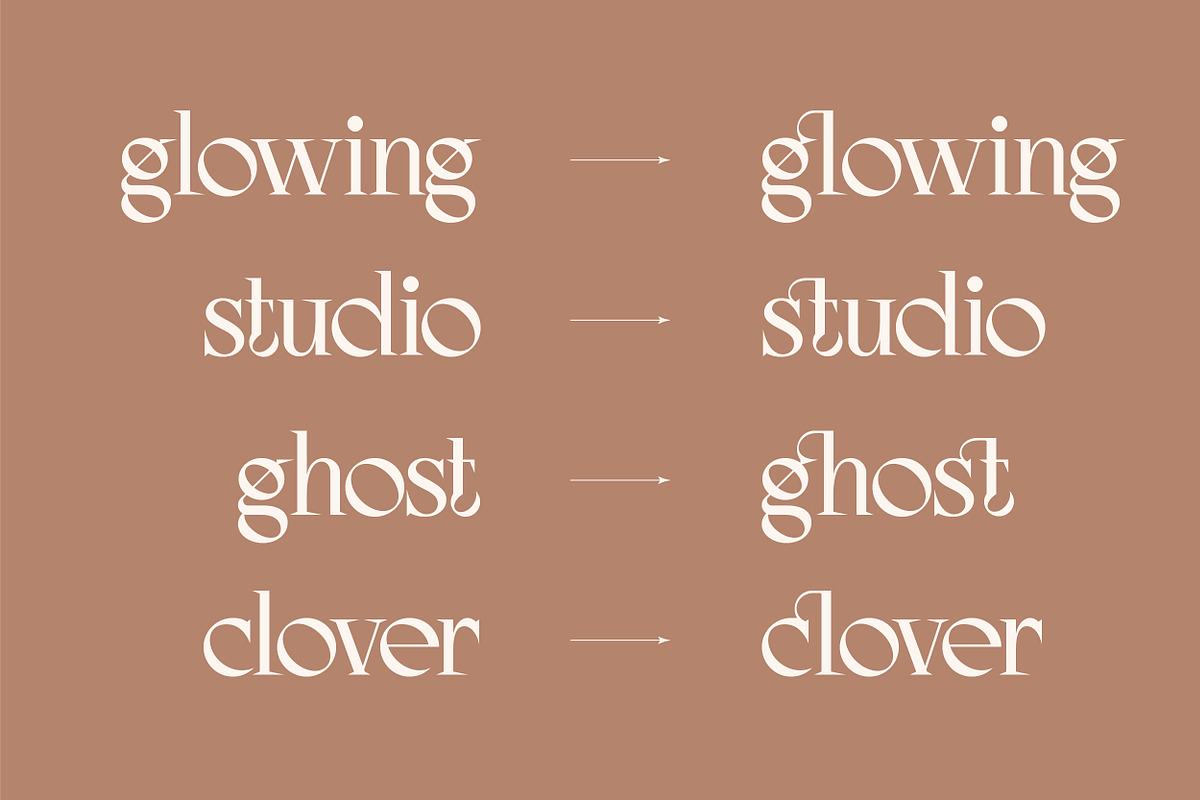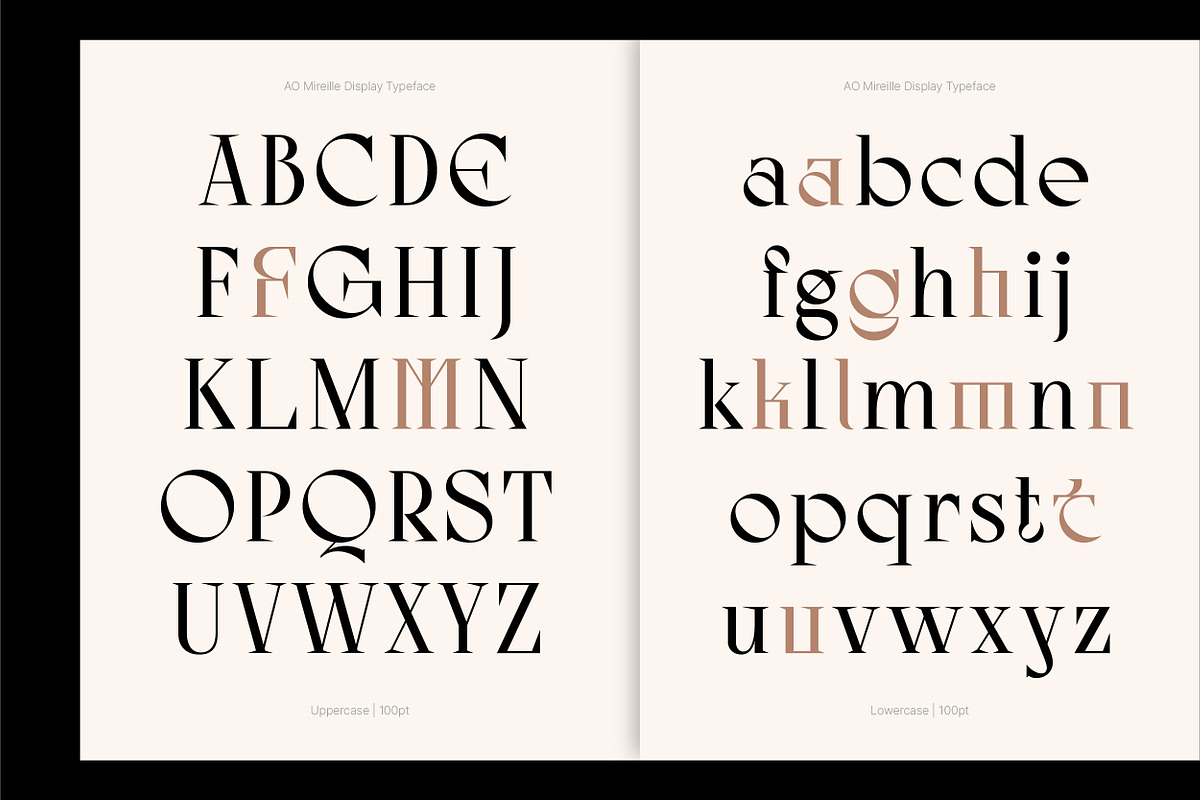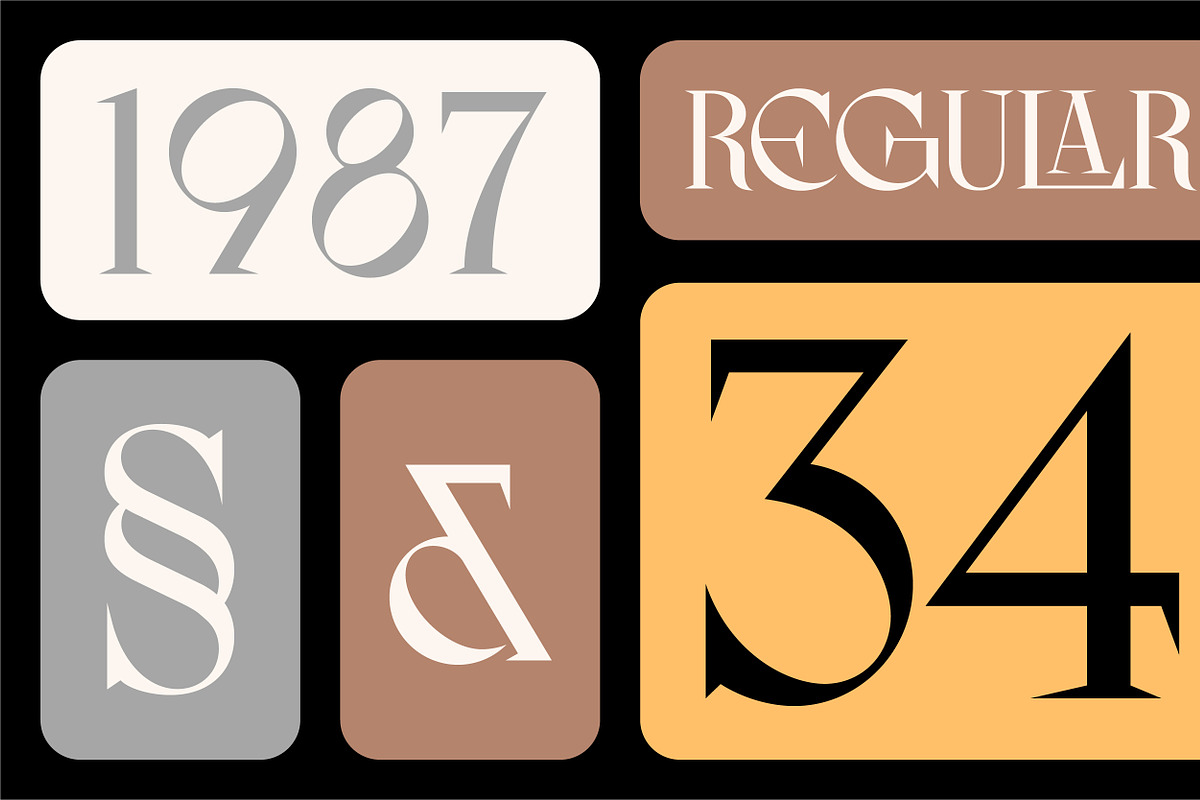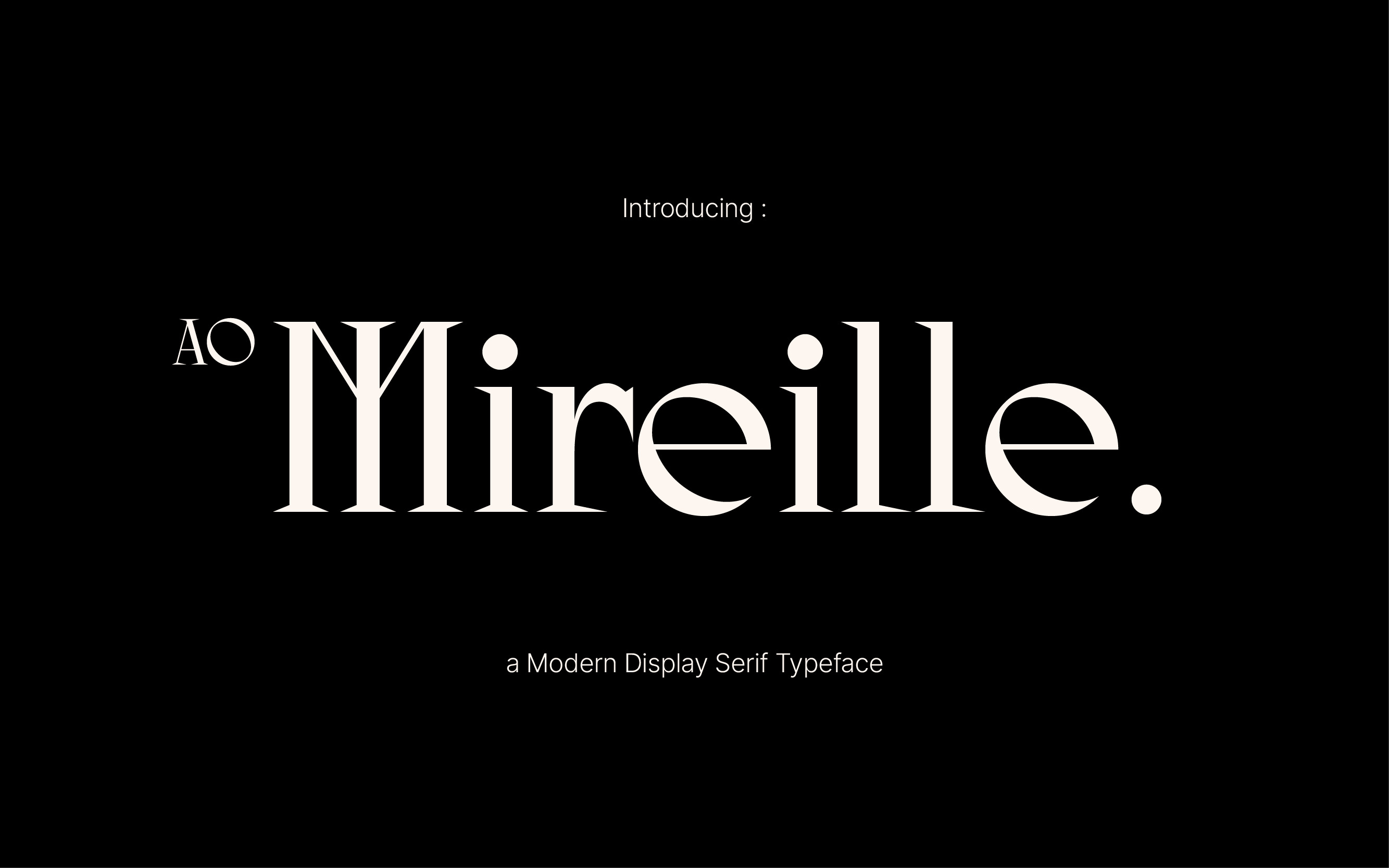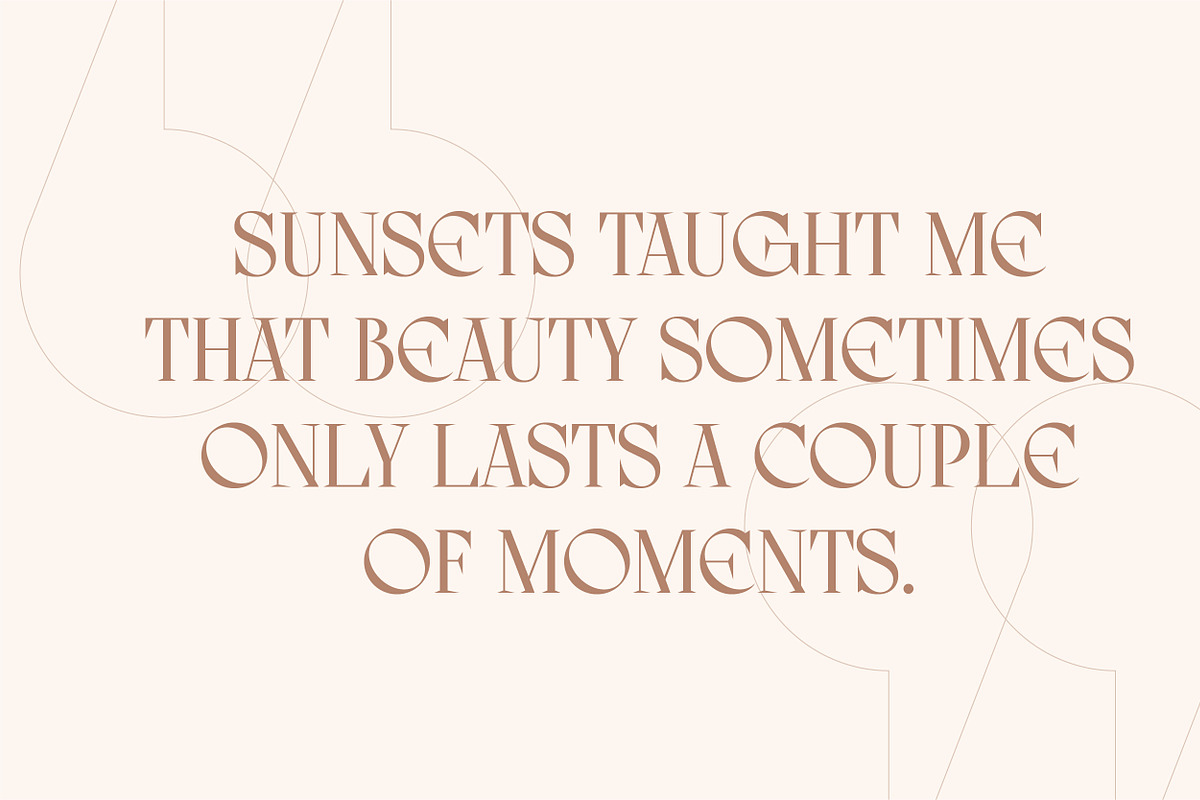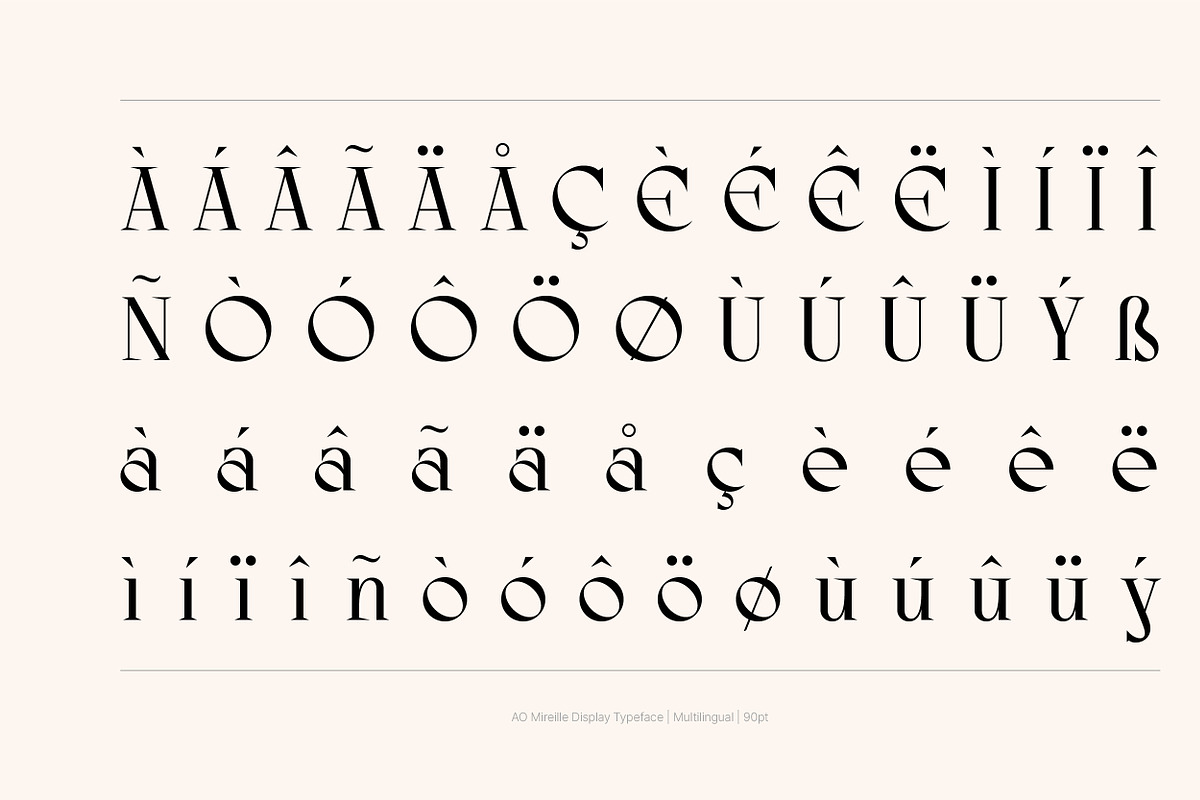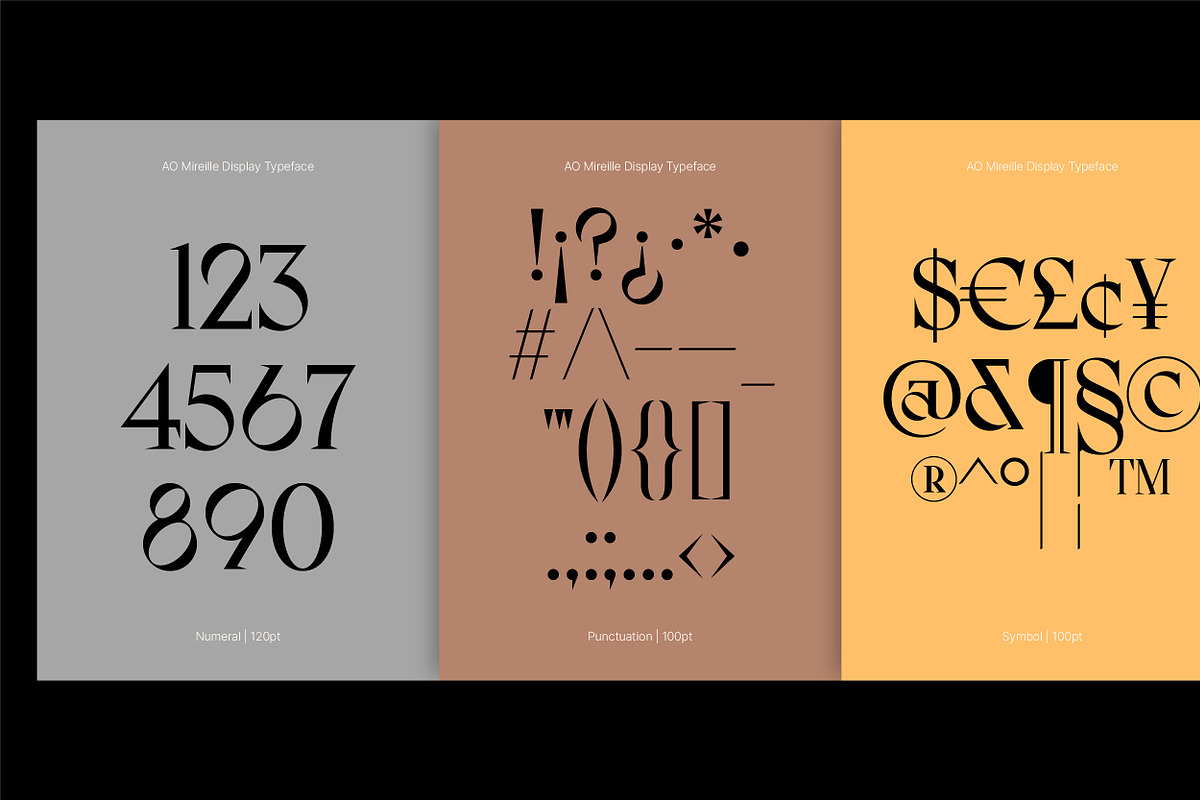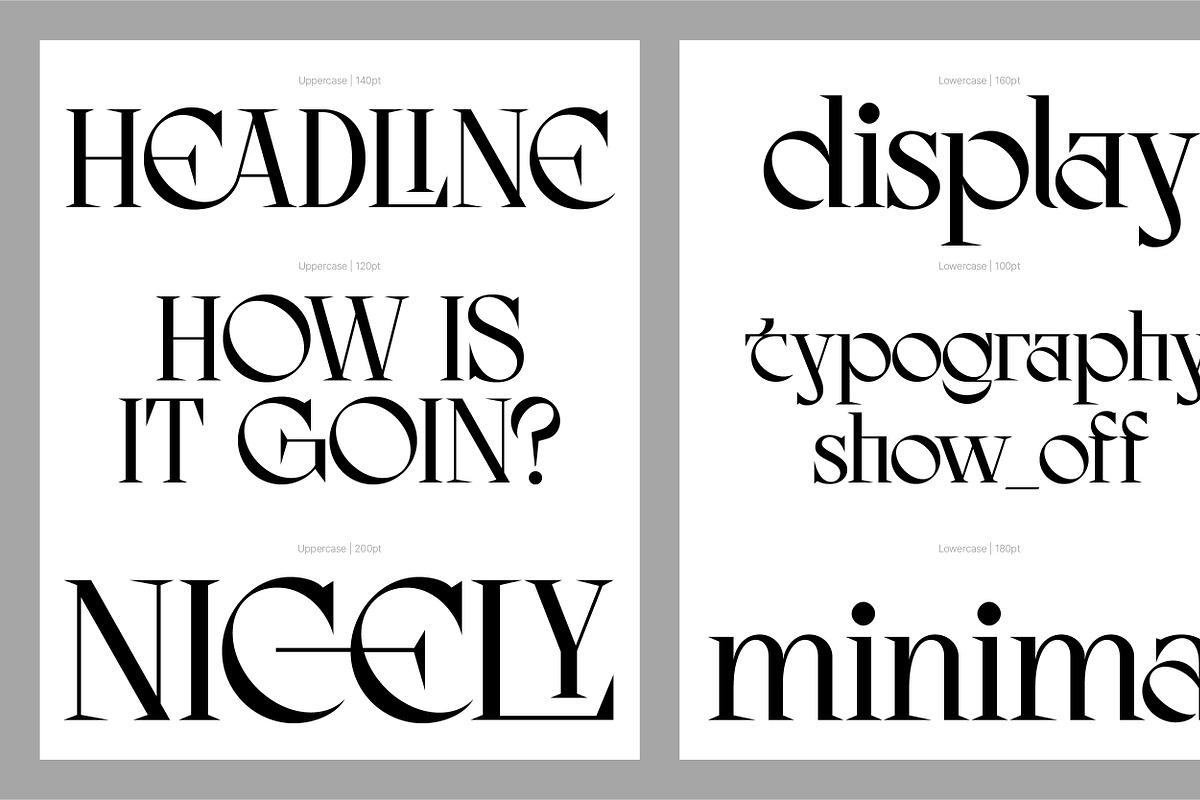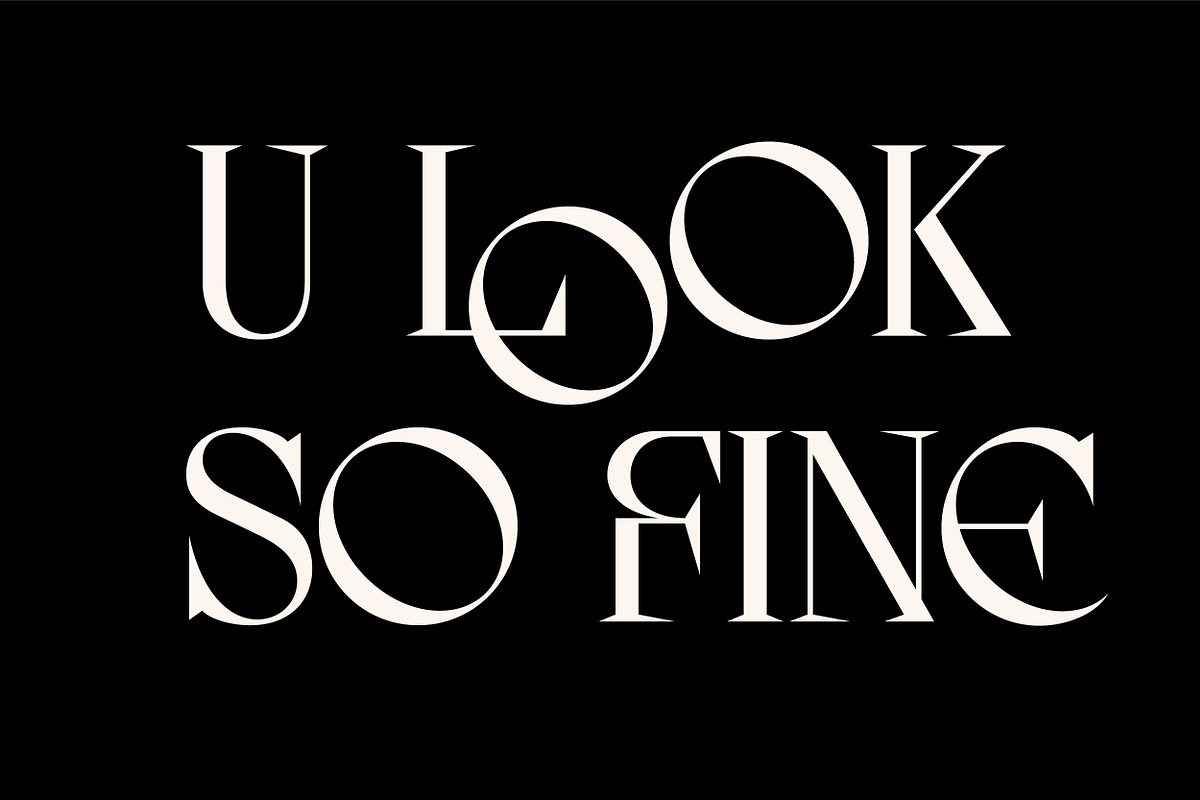
AO Mireille - Display Typeface
AO Mireille Display Typeface.
AO Mireille is a Classy, Fancy, and Modern Serif typeface with its incredibly versatile style and use it to create spectacular designs, good for Branding, Editorial, Printing or Personal project, etc.